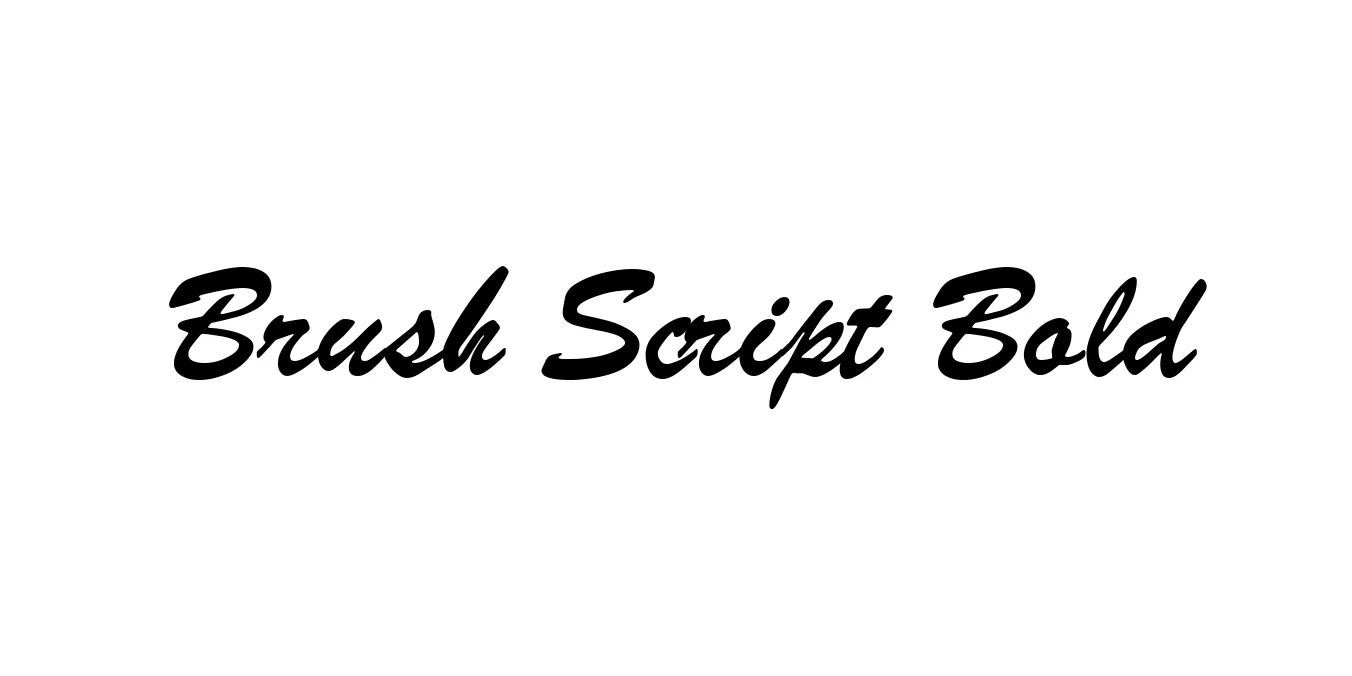
Brush Script Bold
Designed by Robert E. Smith
Brush Script Bold was originally designed in 1942 by Robert E. Smith for the American Type Founders (ATF). It was crafted to mimic the look of handwritten lettering created with a brush, featuring a casual, rhythmic flow that perfectly captured the post-war aesthetic of the mid-20th century. The font is characterized by its connected lowercase letters and thick, fluid strokes that suggest speed and confidence.
The Bold weight of this classic typeface became an icon of commercial graphic design, widely used in advertising, signage, and casual correspondence. Despite the rise of digital typography, Brush Script remains a staple for nostalgic designs and retro-themed projects. Its enduring popularity lies in its ability to add a personal, informal touch to any layout, though it is often best utilized sparingly to maintain legibility and impact.
Brush Script Bold Best Uses
Excellent for catchy headlines and promotional material that requires a human touch.
Frequently used for casual wedding invitations, greeting cards, and event flyers.
Ideal for lifestyle quotes and nostalgic visual content on platforms like Instagram.
Suitable for retro-style branding and classic service industry logos.